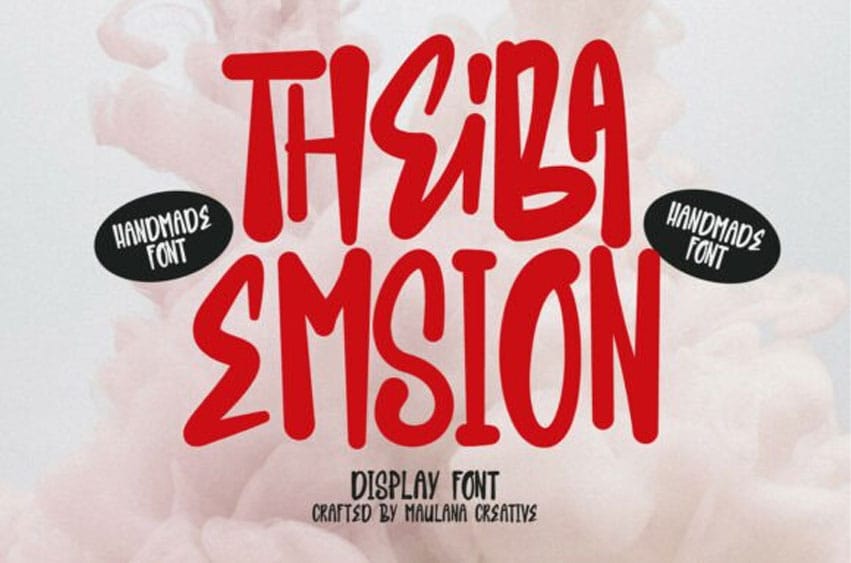
Theiba Emsion Font is a handmade display font that brings playful cartoon vibes and a lively handwritten feel. Its fun character is enhanced with a touch of ligatures, adding extra charm and creativity to your designs. Supporting over 100 languages, Theiba Emsion offers wide accessibility and versatility.
Perfect for logos, social media posts, movie titles, book covers, and both short and long text, it pairs beautifully as a secondary font alongside sans-serifs or serifs. With Theiba Emsion, you can create stunning, eye-catching work that feels unique and full of personality.